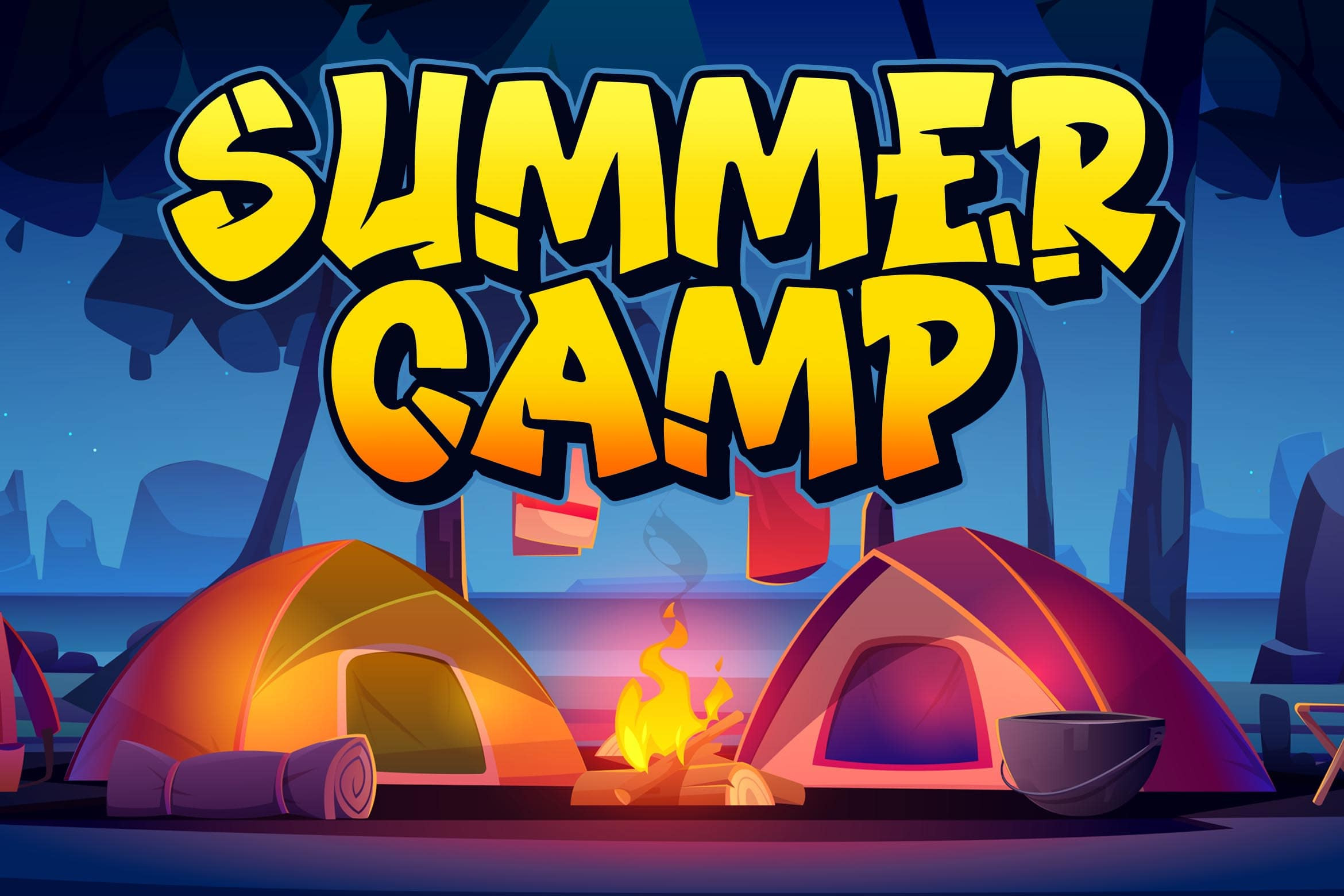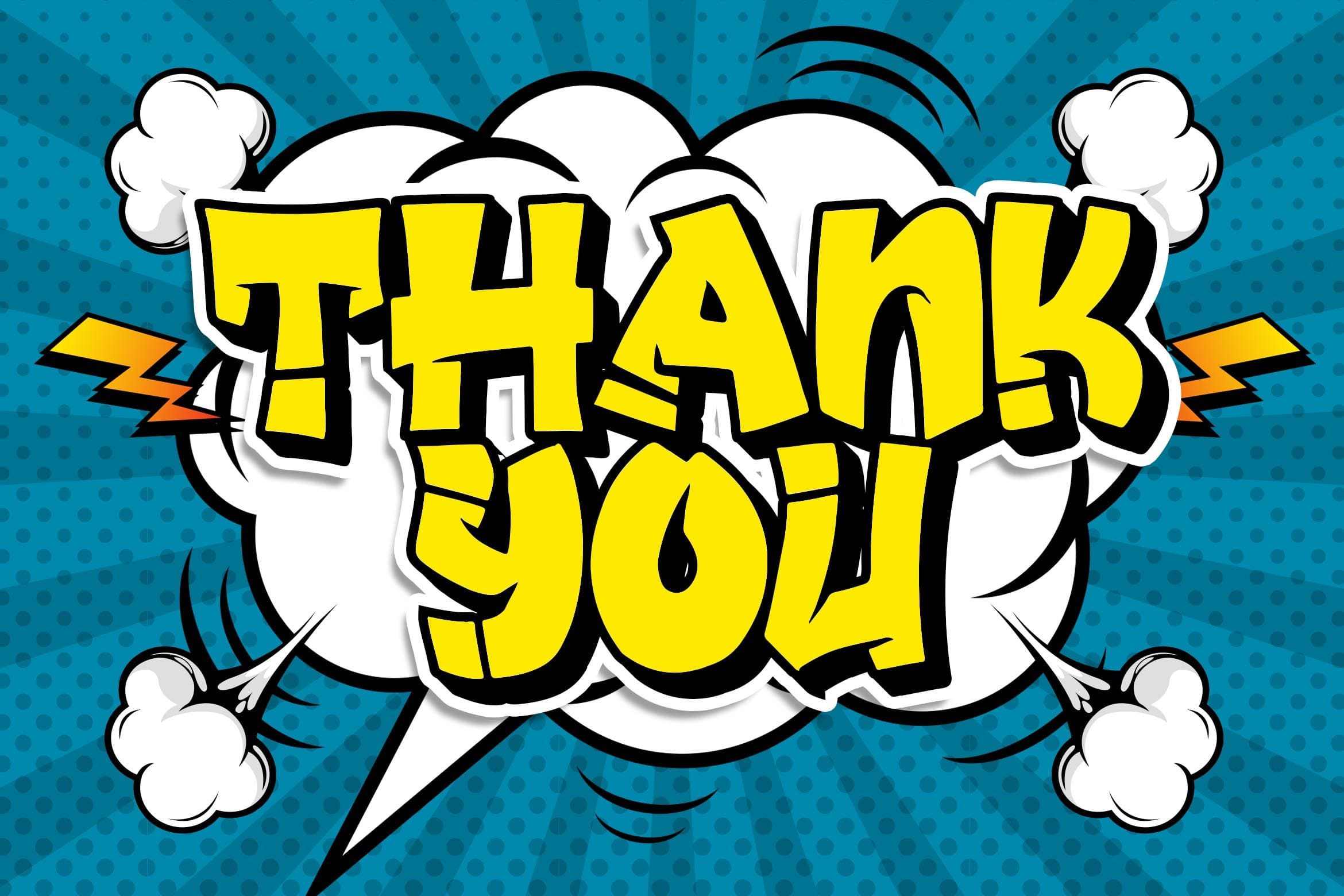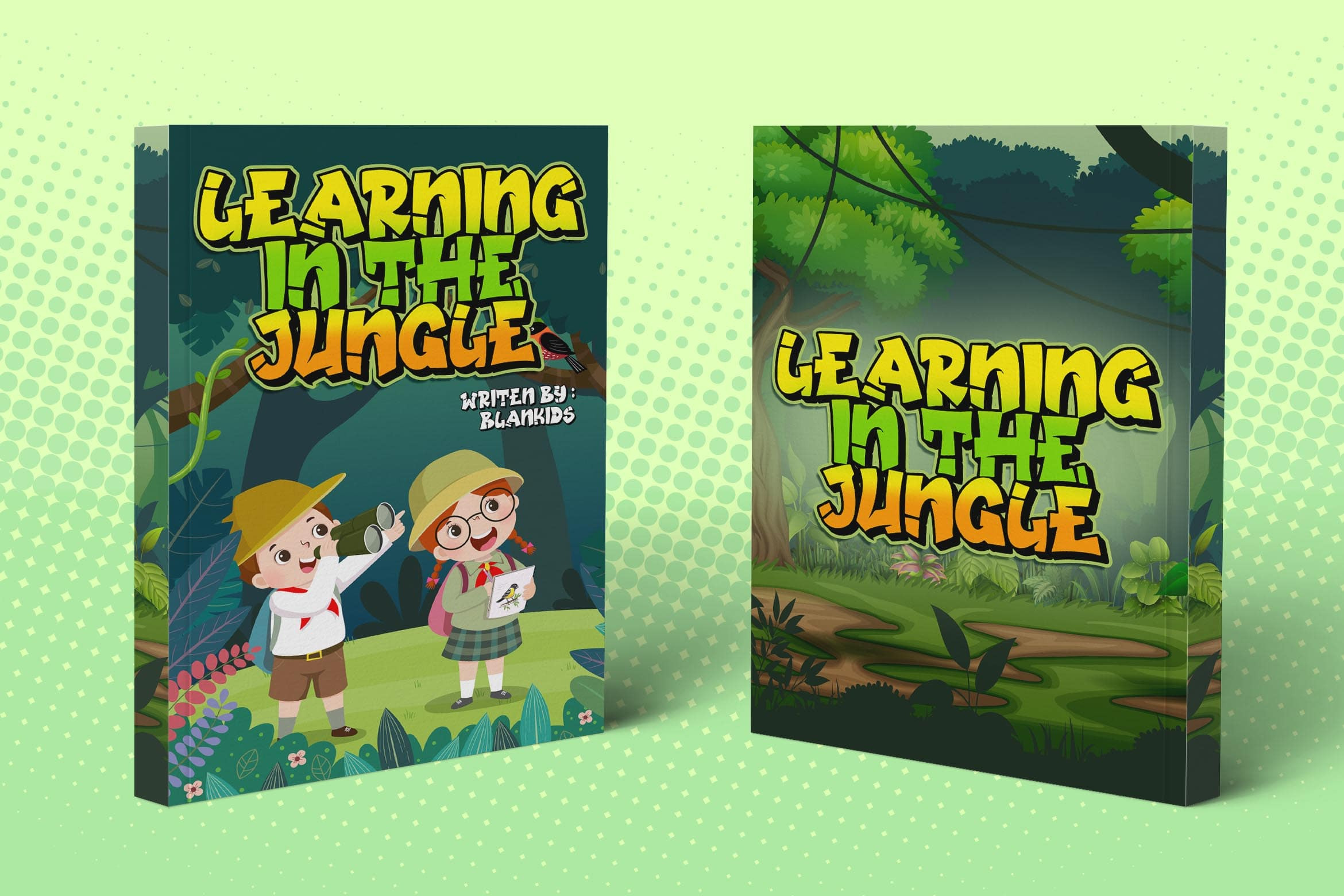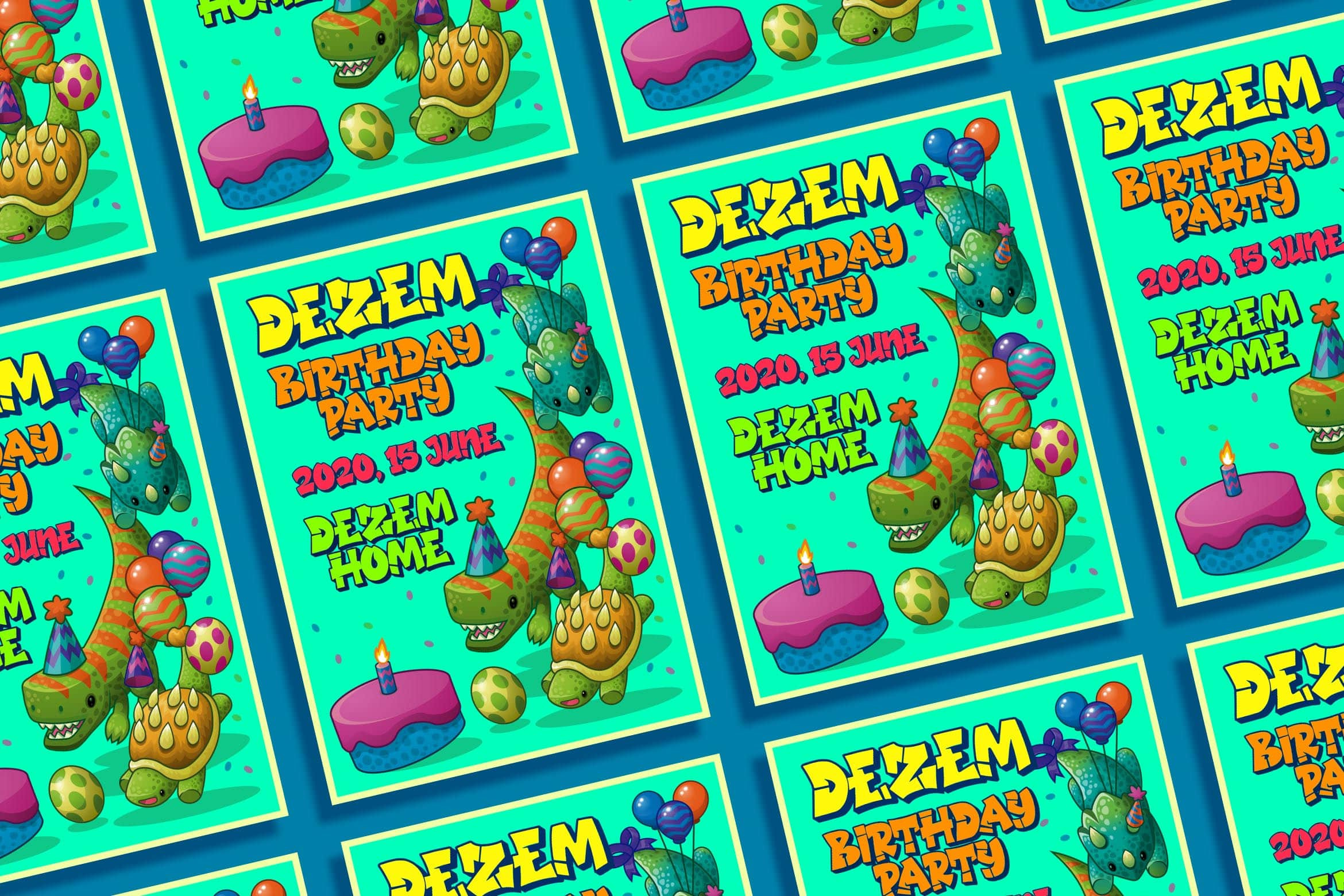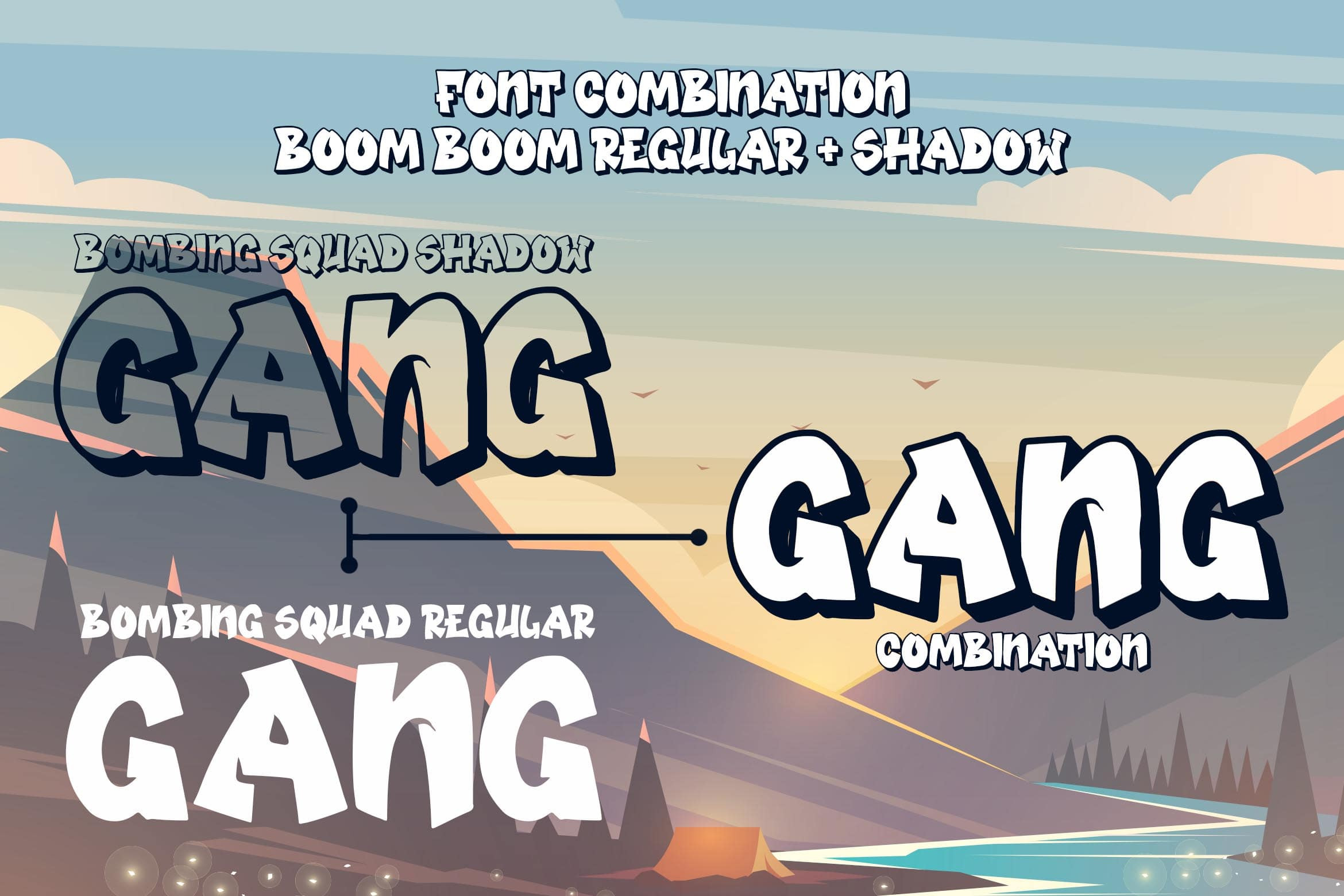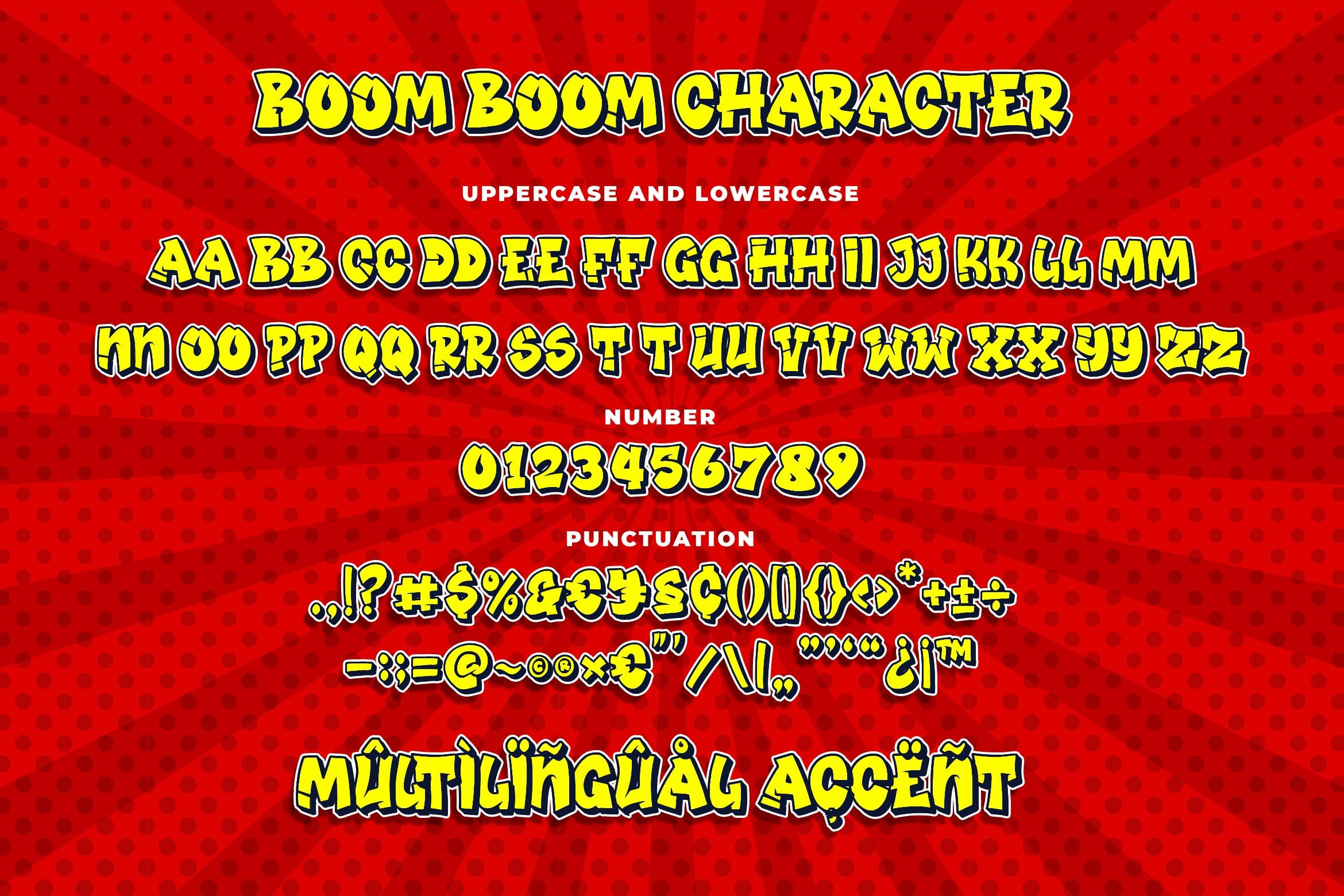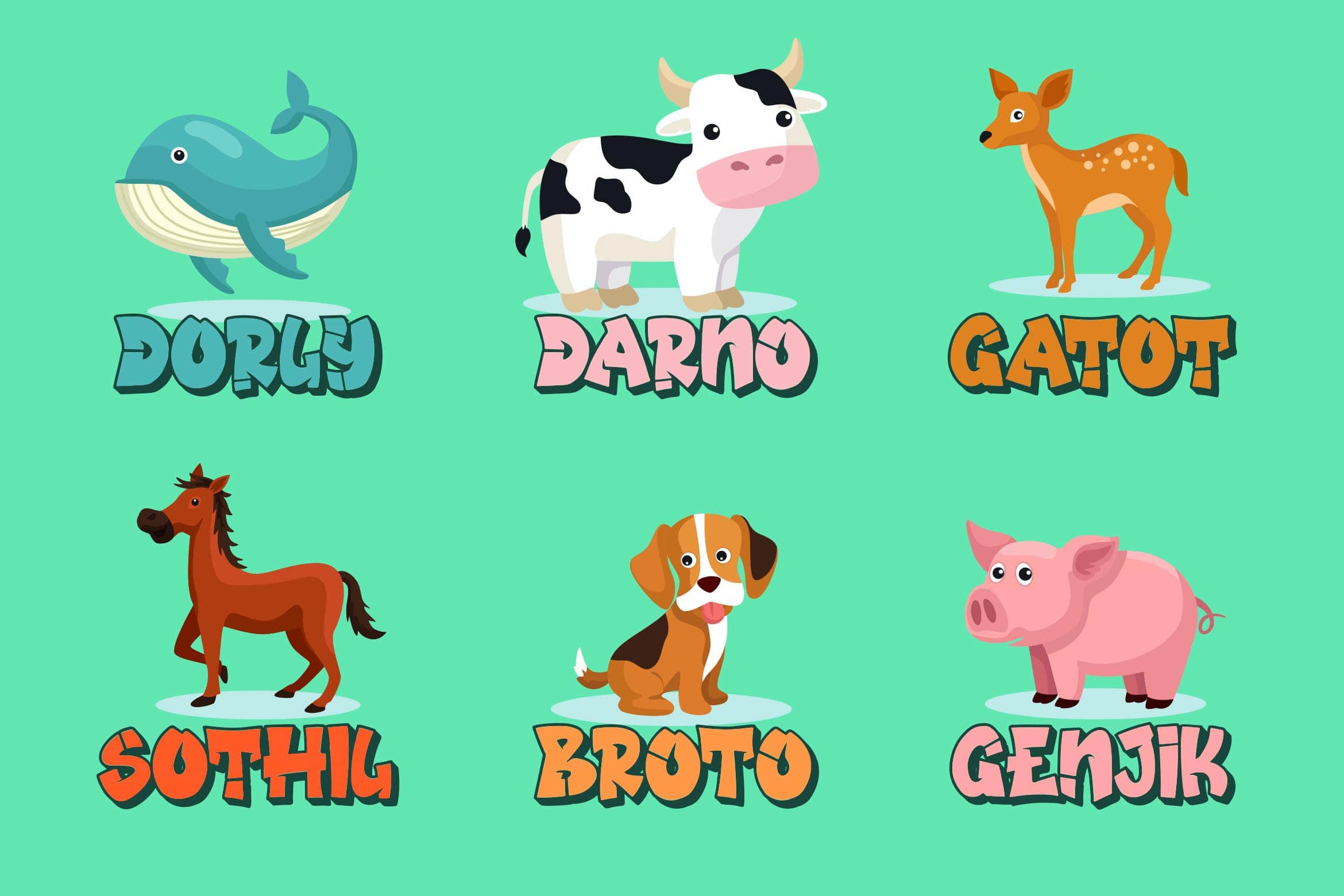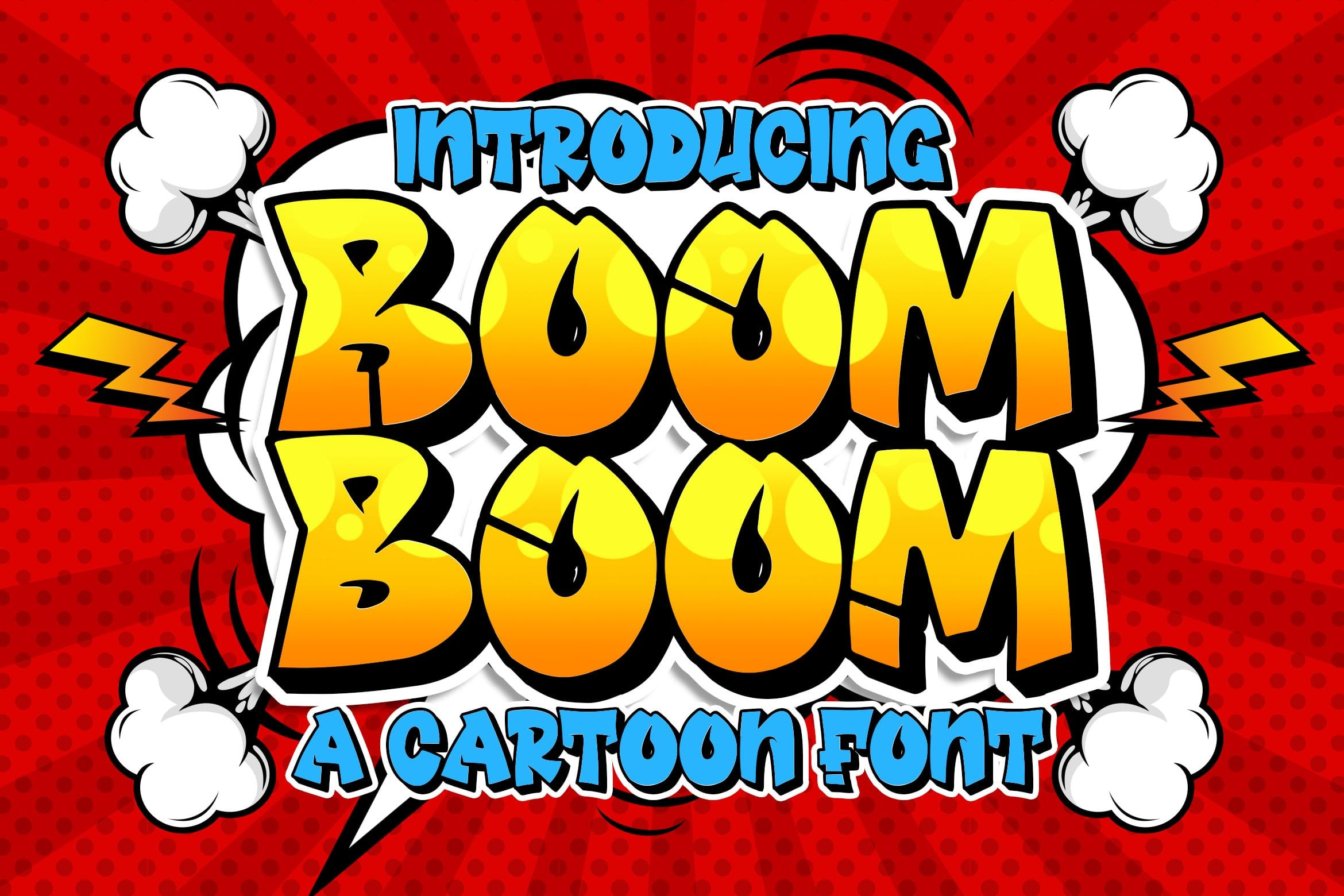
Introducing of our new product the name is Boom Boom Cartoon Font. Boom Boom inspired by comic style with a fun theme very good for graffity poster, Hip Hop music, kids poster, flyer, childrenbook, cartoon, comic etc MULTILINGUAL ACCENT : ØÆøæ¢ÐŒœÁĂÂÀÄĄÅÃǼĆČÇĈĊĎÉĔĚÊËĖÈĘĞĜĢĠĤÍĬÎÏİÌĮĨĴĶĹĽĻĿŃŇŅÑÓŎÔÖÒŐǾÕŔŘŖŚŠŞŜȘ ŤŢÚŬÛÜÙŰŲŮŨẂŴẄẀÝŶŸỲŹŽŻáăâäàąåãǽćčçĉċďéĕěêëėèęğĝģġĥíîïìįĩĵķĺľļŀńʼnňņñóŏôöòőǿõŕřŗśšşŝșťţ ŭûüűùųůũẃŵẅẁýŷÿỳźžż FEATURES : - Uppercase - Lowercase - Number - Punctuation - Multilingual - PUA Encode - Opentype FILES INCLUDED : - Boom Boom . Otf - Boom Boom . Ttf - Boom Boom Shadow. Otf - Boom Boom Shadow. Ttf | Boom Boom Cartoon Font | Blankids Studio